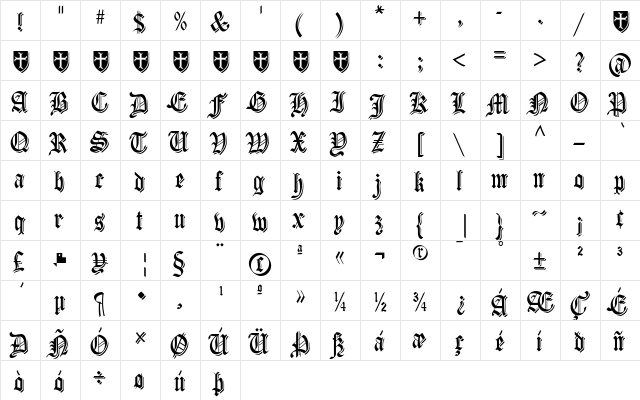
Carta Magna Line FFP
| Foundry | deFharo |
| Designer | Fernando Haro |
Design Context for Carta Magna Line Typeface
Carta Magna Line is a composed and adaptable typeface that performs quietly and consistently across a wide range of design contexts.